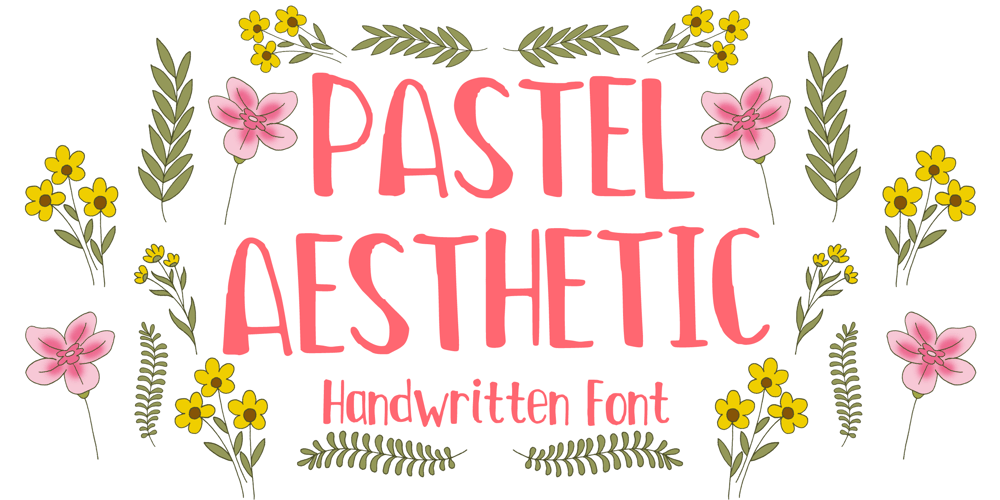
Pastel Aesthetic Font Family was designed by Gabriel Valentinus and published by Mvmet. Pastel Aesthetic contains 1 styles and family package options. Pastel Aesthetic is a lovely and playful handlettering font. You can use it for anything ranging from t-shirts, book designs, packaging and greeting cards to stickers and posters, or anything that needs a casual touch. If you want to use it for Christmas or Valentine or other lovely themed designs, it will be your perfect font to pick. Fall in love with its incredibly versatile style, and use it to create lovely designs!